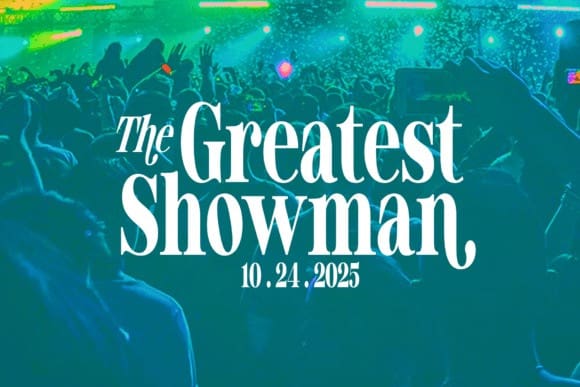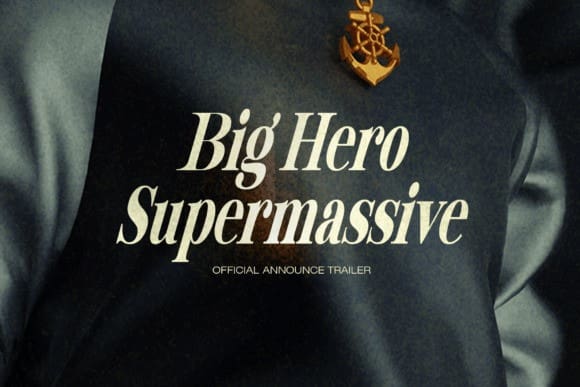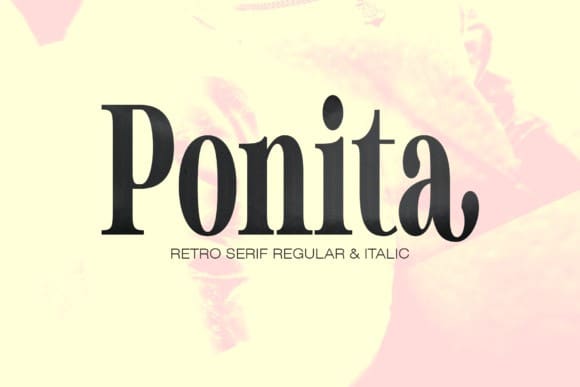
Ponita Font
Ponita Font is a modern and elegant serif font. No matter the topic, this font will be an incredible asset to your fonts’ library, as it has the potential to elevate any creation.